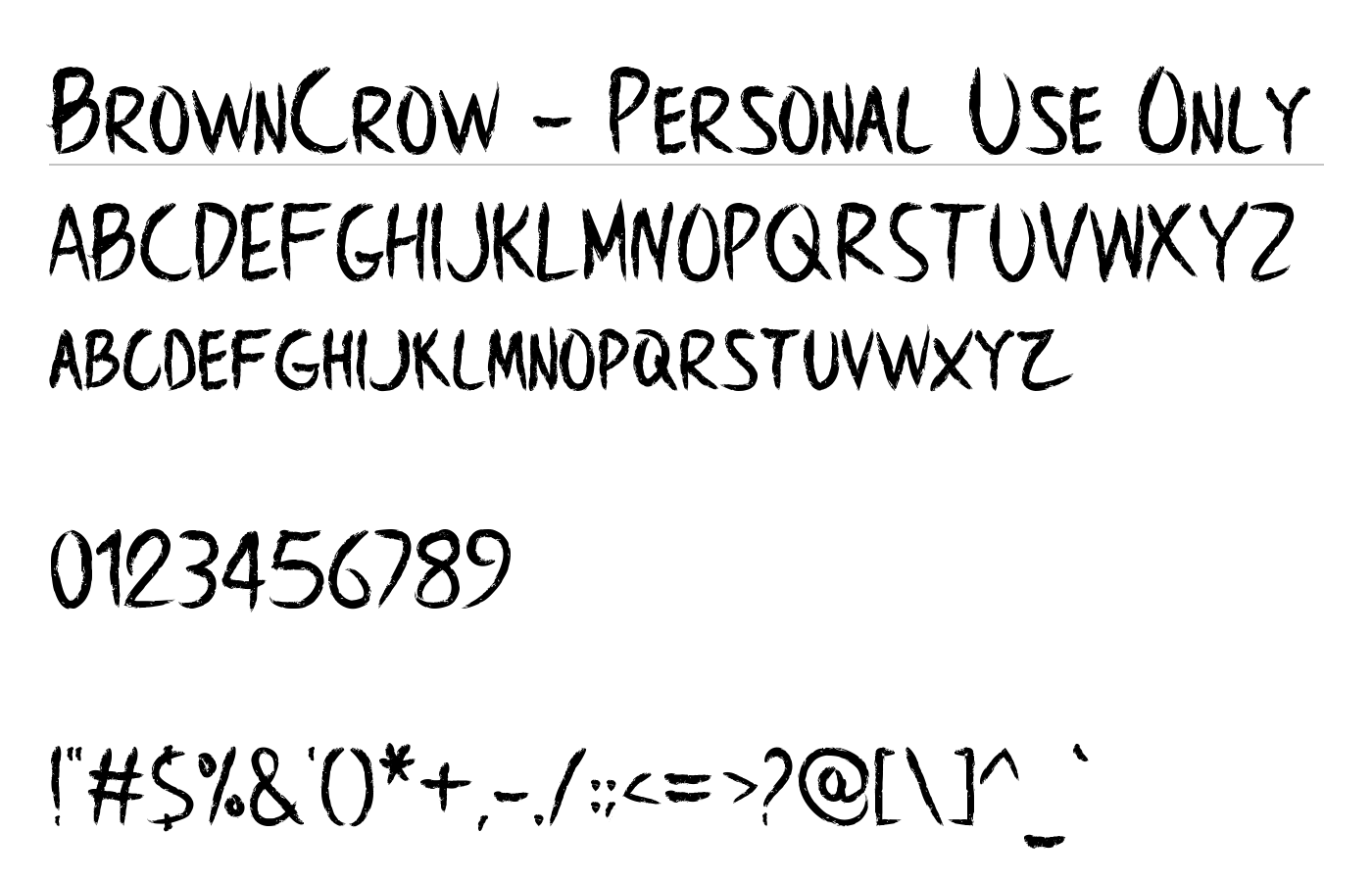
BrownCrow is a casual, hand-drawn sans serif font featuring rough, textured strokes that give it a lively, organic feel. Its irregular shapes and playful style make it ideal for creative projects, informal branding, and designs that want to convey friendliness and approachability. This font works beautifully in headlines, posters, and personal projects where a unique, handcrafted aesthetic is desired.
BrownCrow - Personal Use Only Font
About BrownCrow - Personal Use Only Font